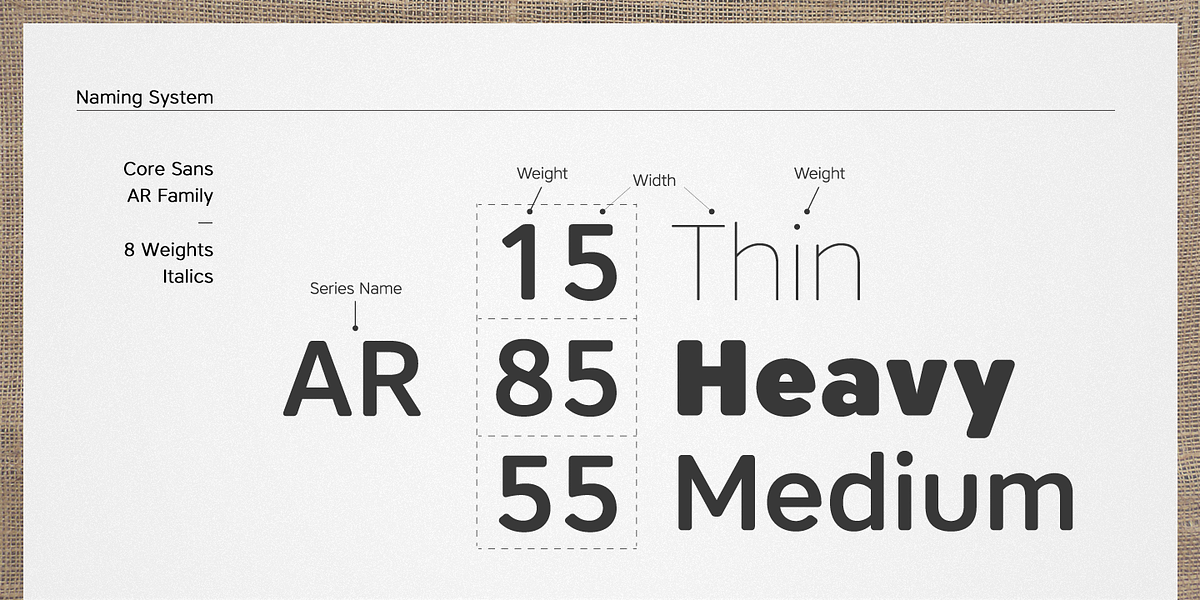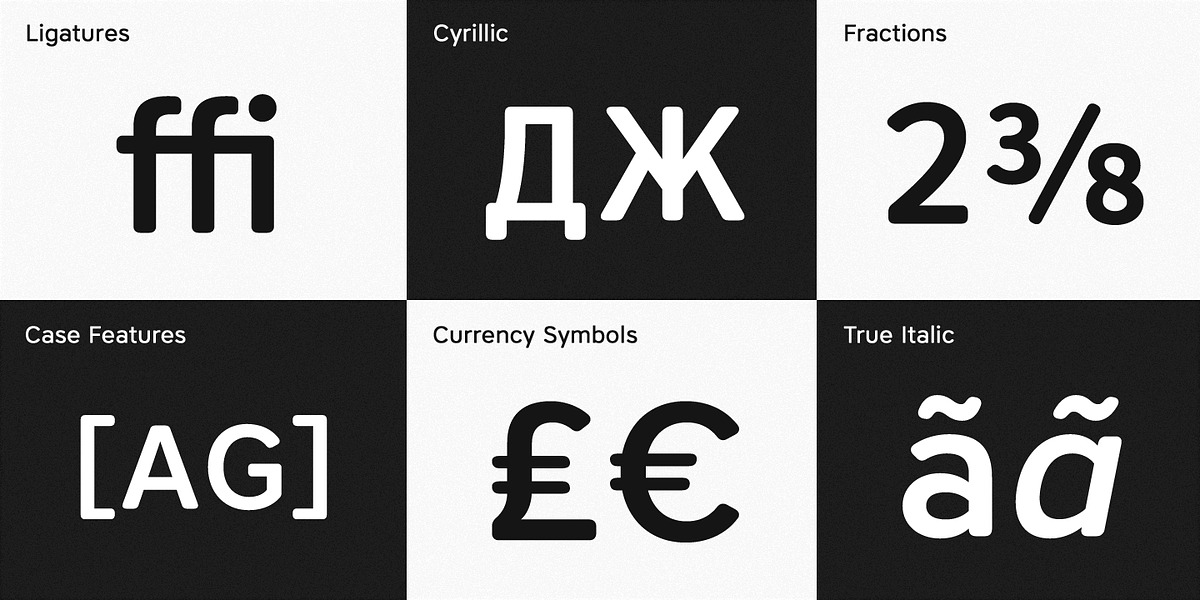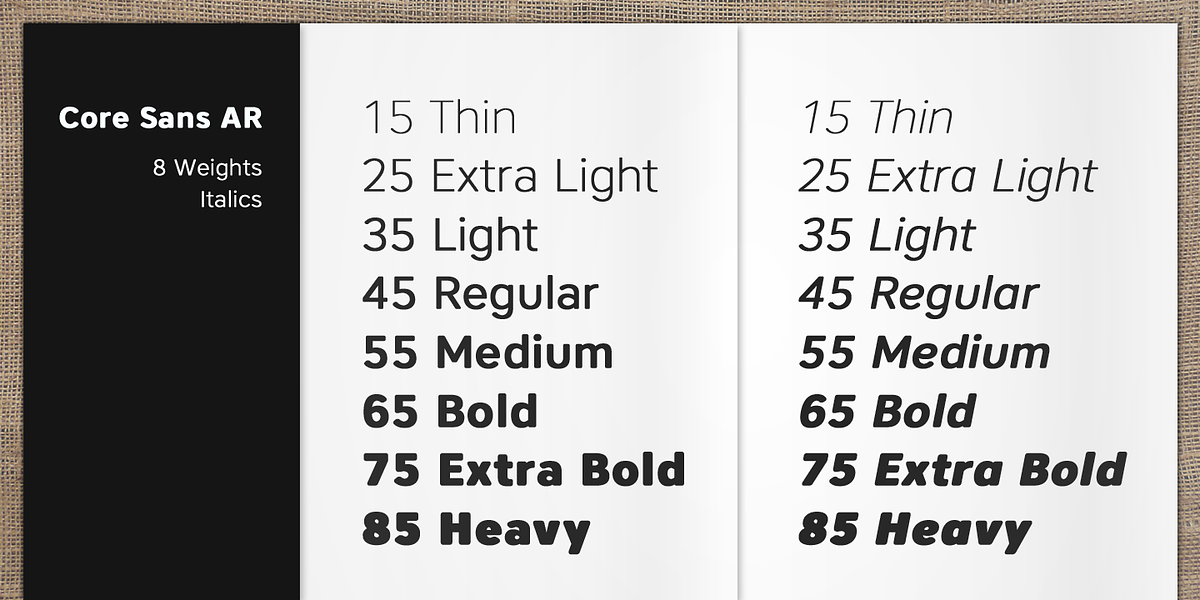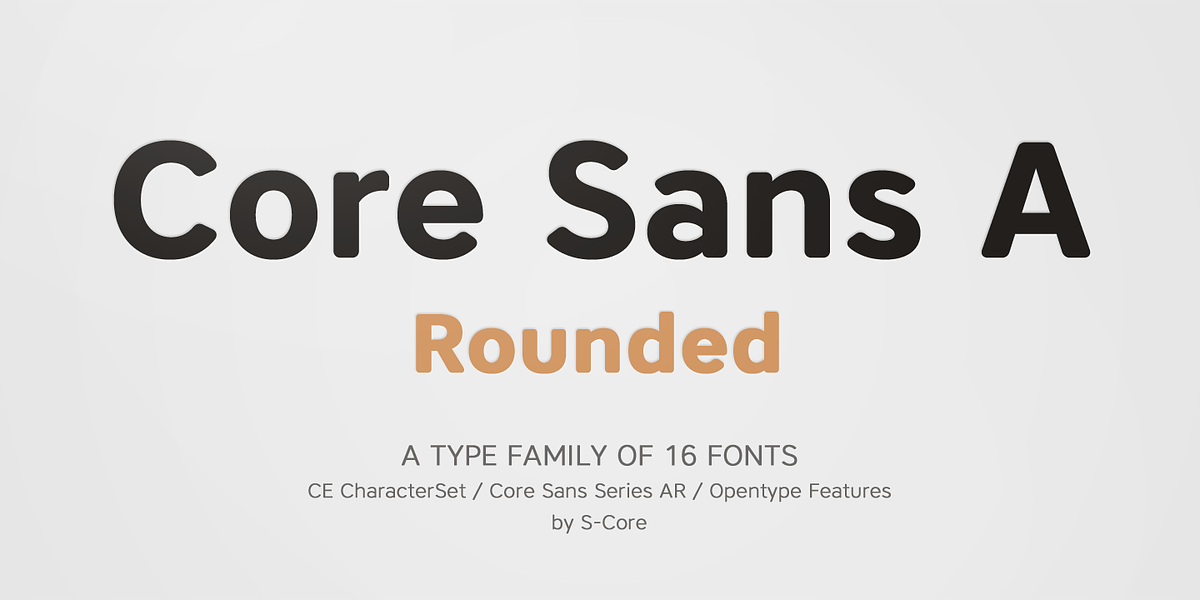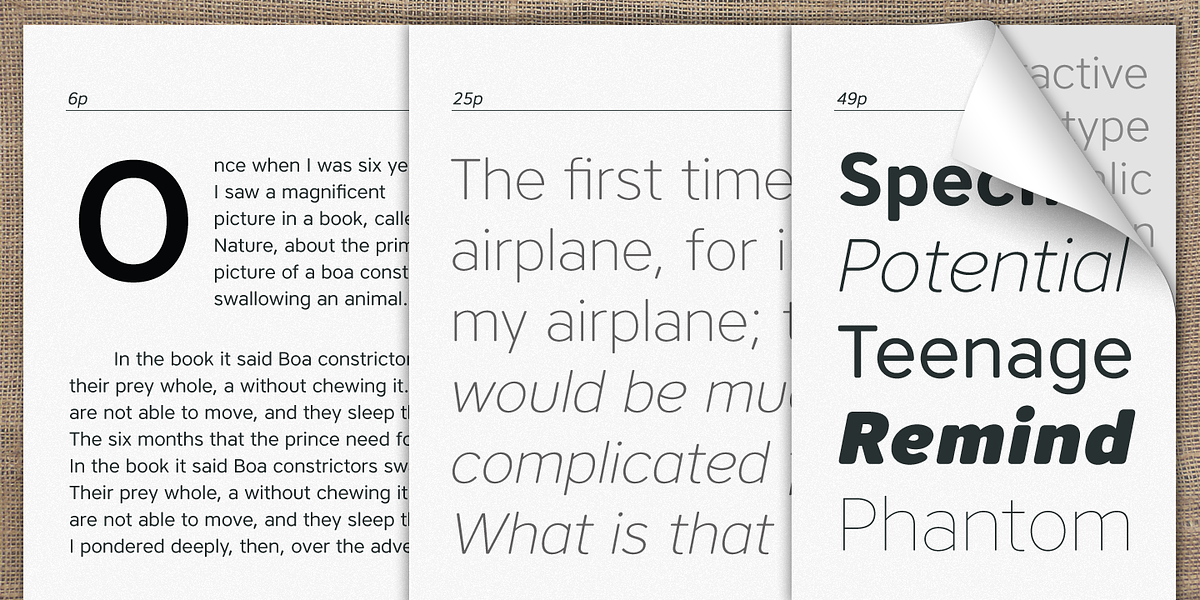
Core Sans AR
Core Sans AR is a neo-grotesque sans serif font designed for readability. It features rounded letterforms and precise spacing for optimal typesetting. The typeface comes in eight weights, from Thin to Heavy, along with their italic counterparts. Its character set includes Basic Latin, Cyrillic, Central European, Turkish, and Baltic alphabets, making it suitable for a wide range of languages. Core Sans AR is recommended for various applications such as books, web pages, screen displays, and corporate branding.